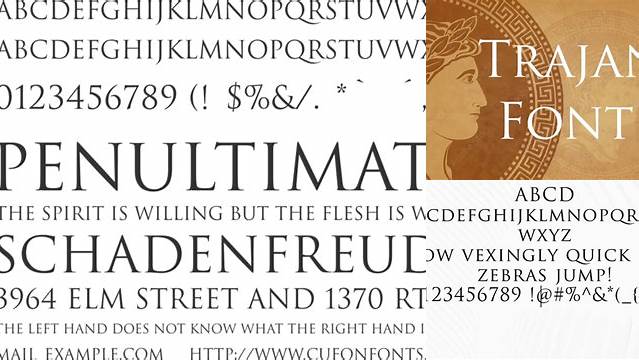
Hey everyone, are you on the hunt for a classic, timeless font that screams elegance and sophistication? Look no further, because we're diving deep into the world of the Trajan Bold font family! This font is a true legend, and you've probably seen it everywhere from movie posters to book covers. And the best part? We'll guide you through how to get a Trajan Bold font family free download, along with tips on how to use it like a pro. So, buckle up, because we're about to embark on a fontastic adventure! Let's get started.
Trajan Bold Font: A Brief History and Its Enduring Appeal
Alright, before we get to the goodies, let's talk a little bit about the history of Trajan Bold font and why it's still so incredibly popular. This font is inspired by the inscriptions on Trajan's Column in Rome, which was built around 113 AD. The column's lettering is considered a masterpiece of design, and the Trajan Bold font is a direct descendant of this historical marvel. The font was designed by Carol Twombly in 1989, and it quickly gained traction due to its classic and sophisticated look. Its clean lines, strong serifs, and overall elegance make it perfect for conveying a sense of authority, history, and timelessness.
What makes Trajan Bold font so special? Well, it's all about the details, my friends! The font's proportions are meticulously crafted, the serifs are sharp and well-defined, and the overall aesthetic is simply stunning. It has a regal feel that commands attention, and it works beautifully in both large and small sizes. It's the kind of font that makes you feel like you're looking at something important, whether it's a movie poster, a book cover, or a corporate logo. That is why the Trajan Bold font is used in numerous projects like, logos, posters, headings, and much more.
Trajan Bold vs. Similar Fonts: Finding the Perfect Match for Your Project
Let's talk about alternatives, shall we? While Trajan Bold is awesome, it's always good to know your options. You might be able to find a similar font that fits your needs better. There are tons of fonts out there that share the same classical vibe.
Some fonts that are similar to Trajan Bold are:
- ITC New Baskerville: This is a classic serif font with a touch of elegance. It has a different feel to Trajan Bold, but it can still create a beautiful and timeless look.
- Adobe Caslon Pro: Another elegant serif font with a more delicate appearance. Great if you want to go with a traditional and classy look.
- Forum: Forum is an uppercase-only font that is very similar to Trajan Bold. It is a great choice to produce headlines and titles.
When choosing a font, consider your project's mood, style, and target audience. If you're aiming for a sense of history or classic elegance, Trajan Bold or a similar font would be a great choice. If you're looking for something with a more contemporary feel, you might want to look for a different font.